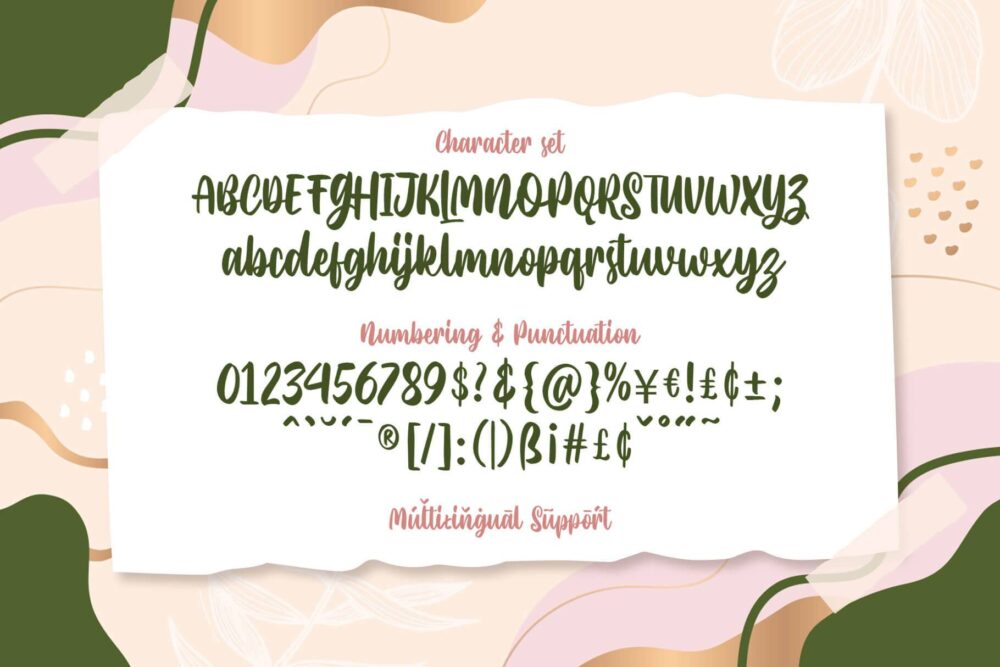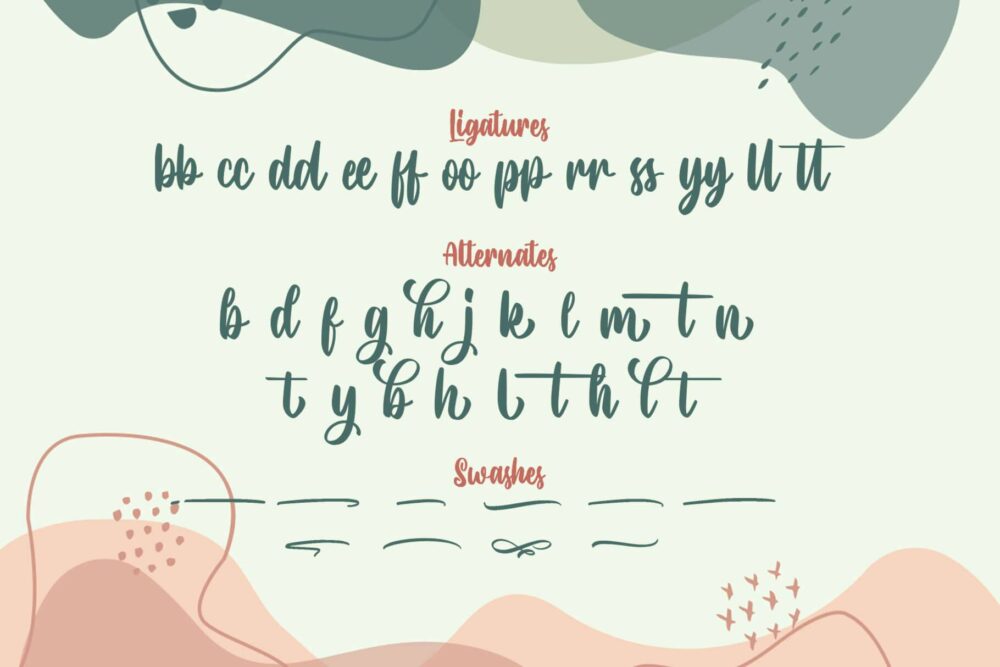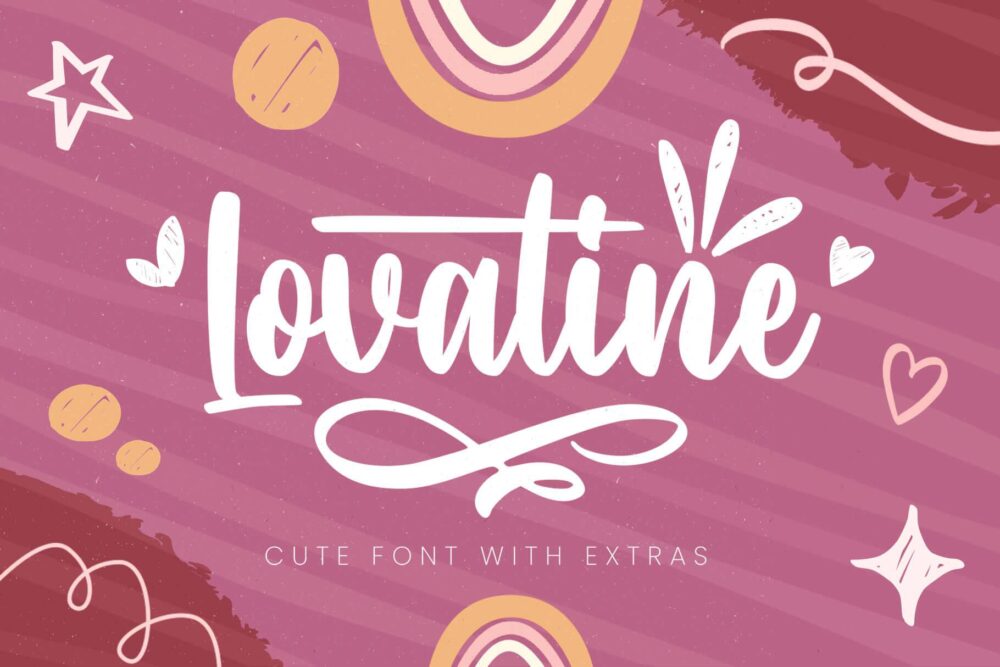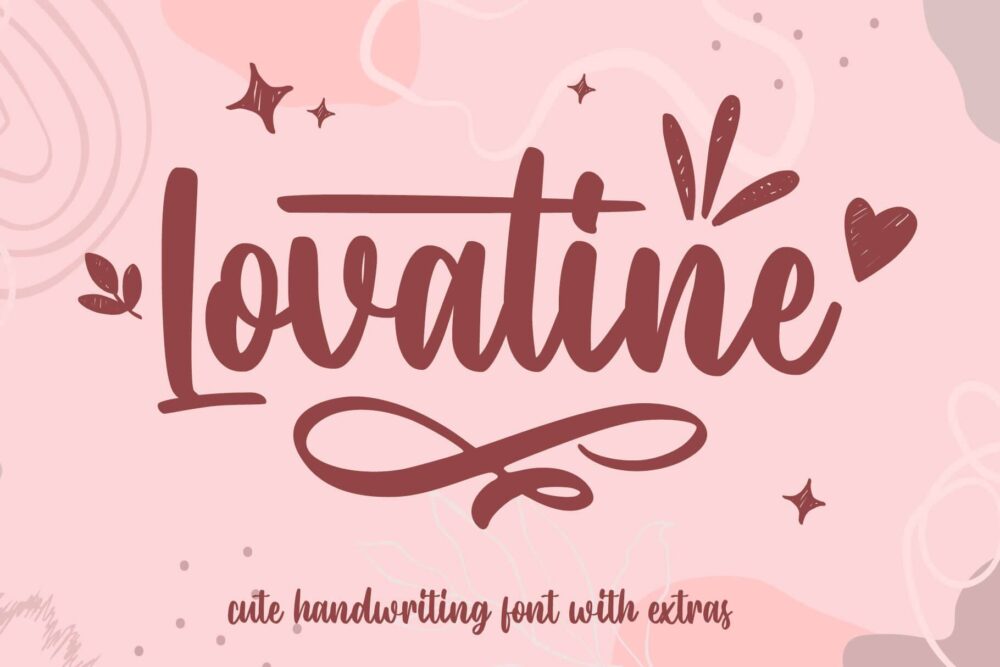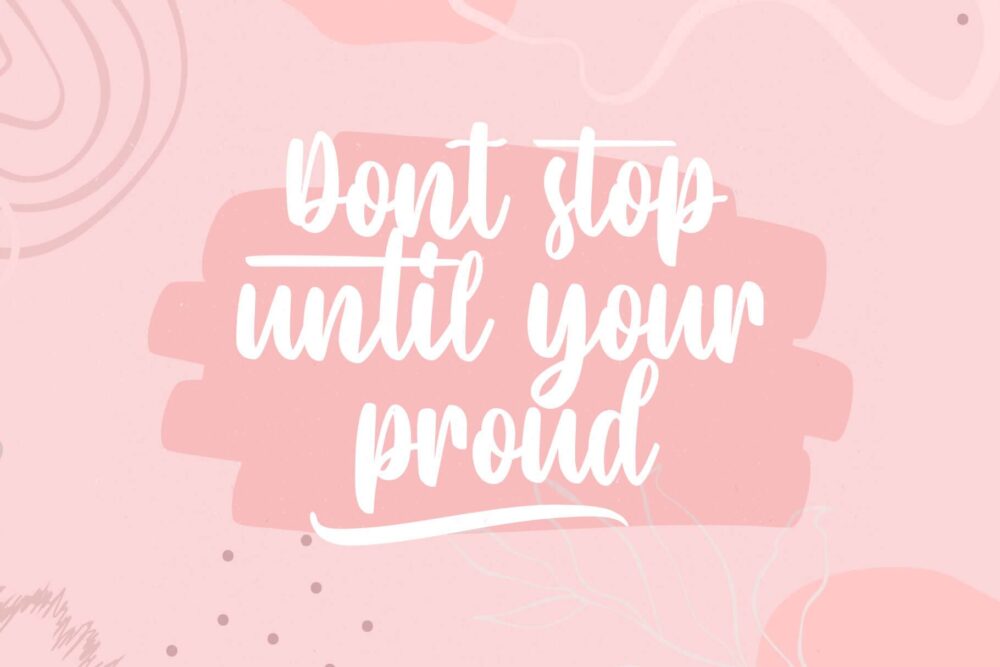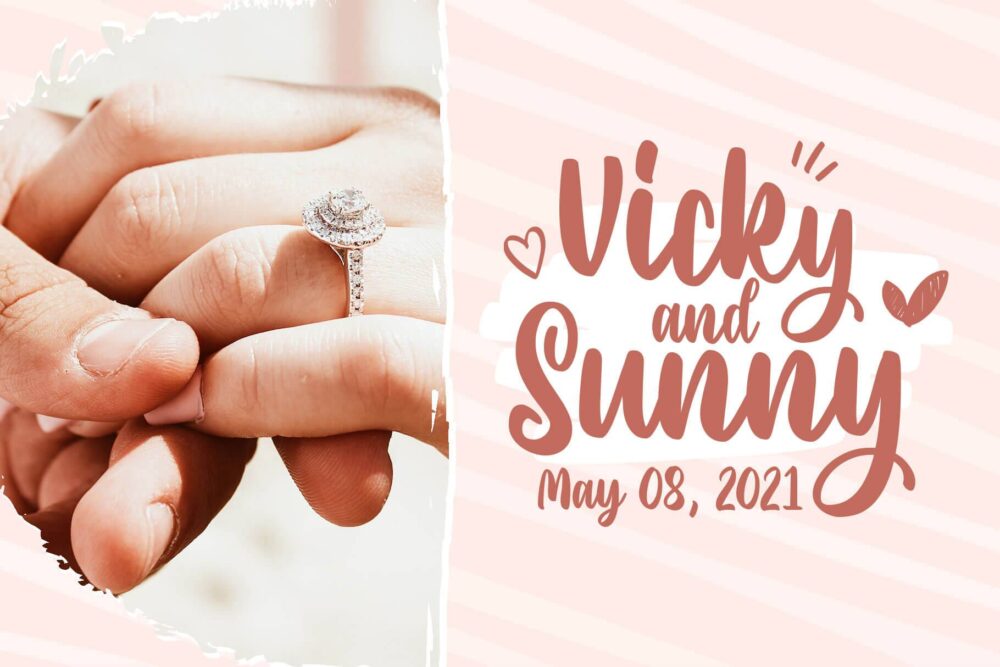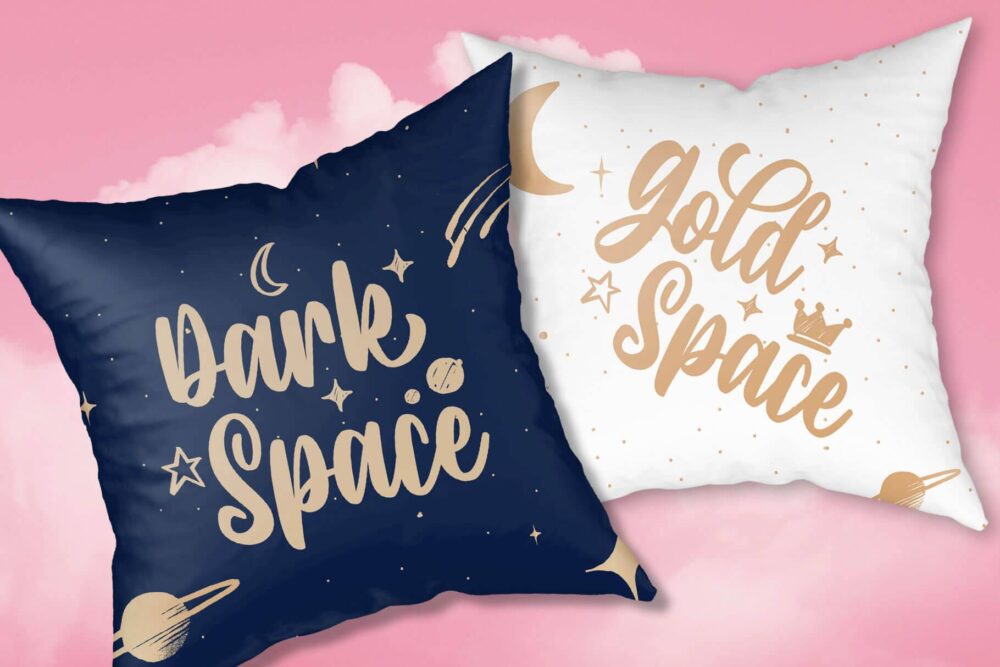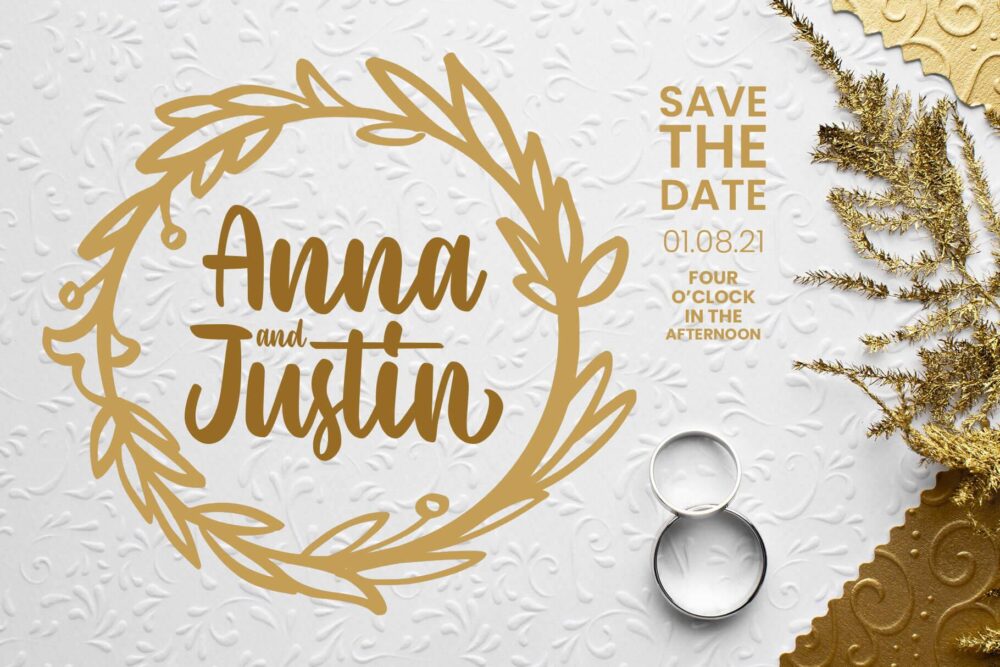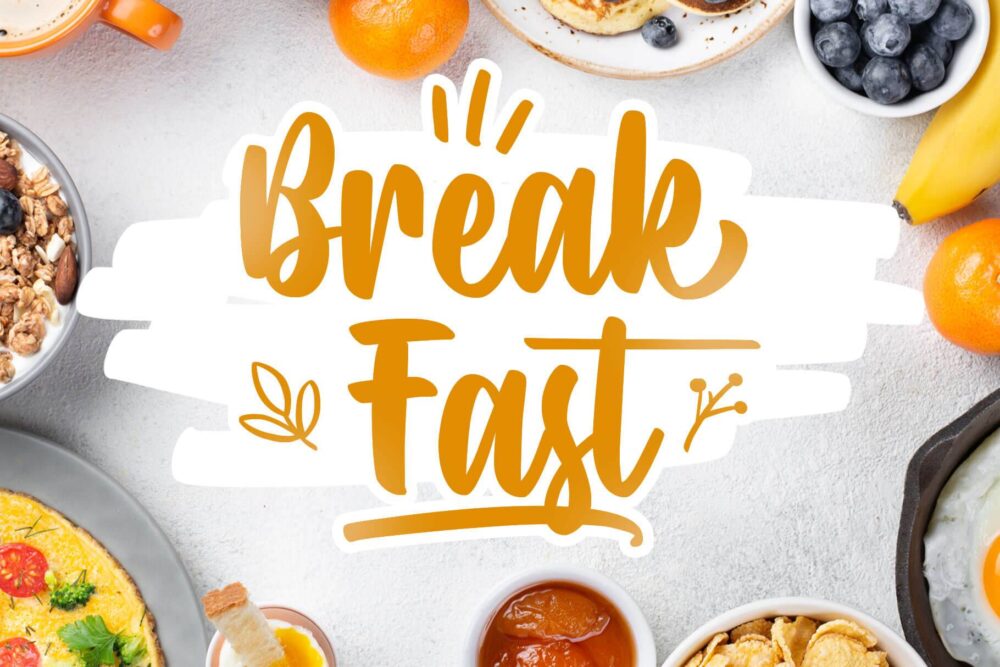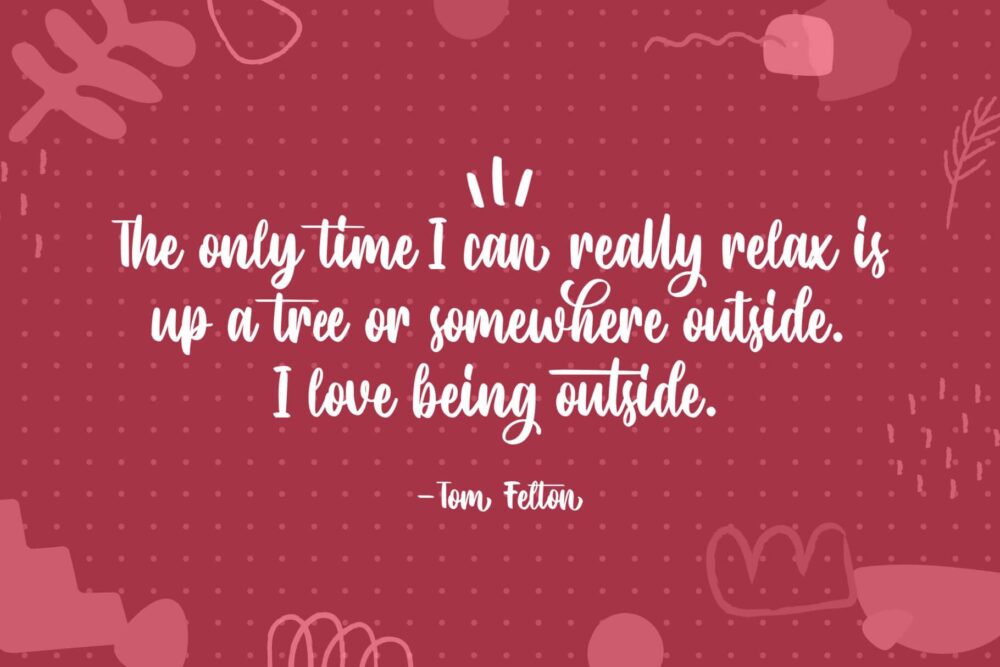
Lovatine
Lovatine Dingbats
Feel the love with Lovatine, a brand new lovely font that is created with smooth, soft, and lovely feels. Designed with extra alternates characters, Lovatine is the perfect choice for decoration, branding, children’s needs, books, quotes, and more!
Lovatine is complete with extra dingbats containing some symbols, ornaments, and doodles which you can apply to beautify your design and make it more attractive!
• Uppercase
• Lowercase
• Numbers
• Symbols
• Stylistic Alternates
• Swashes
• Ligatures
• Multilingual Characters.